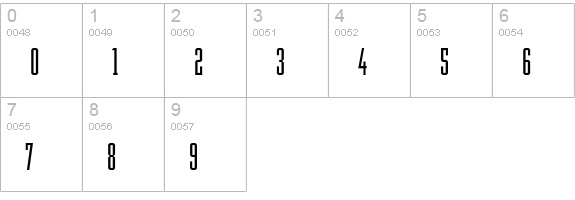
Teknik Std Font Details
Teknik Std is a remarkable font that effortlessly combines modernity with a touch of elegance. Its clean and sleek design make it perfect for a wide range of projects, from branding and advertising to social media posts and website designs. The versatility of Teknik Std allows it to adapt to various styles and themes, making it a go-to choice for designers and creatives alike. What makes Teknik Std even more appealing is the fact that it is available for free. Yes, you read that right - this stunning font can be downloaded without any cost. Thanks to FontsMarket.com, you can easily access and obtain this font to enhance your creative endeavors. With just a few clicks, you can add Teknik Std to your font collection and unlock a world of possibilities. The beauty of Teknik Std lies in its attention to detail. Every curve and line has been meticulously crafted to create a harmonious and visually pleasing typeface. Its legibility is exceptional, ensuring that your messages are conveyed effortlessly and effectively. Whether you are designing a logo, composing a headline, or creating eye-catching posters, Teknik Std will undoubtedly elevate your work to new heights. In addition to its aesthetic appeal, Teknik Std also offers a wide range of weights and styles, allowing you to experiment and find the perfect combination for your project. From light and airy to bold and impactful, this font has it all. Its versatility ensures that it can adapt to any design concept, making it a valuable asset in your creative arsenal. So why wait? Don't miss out on the opportunity to enhance your designs with Teknik Std. It is freely available to download at FontsMarket.com, where you can explore a vast collection of fonts to suit your every need. Whether you are a professional designer or a passionate hobbyist, Teknik Std is a font that will take your creations to the next level. Download it today and let your imagination run wild.